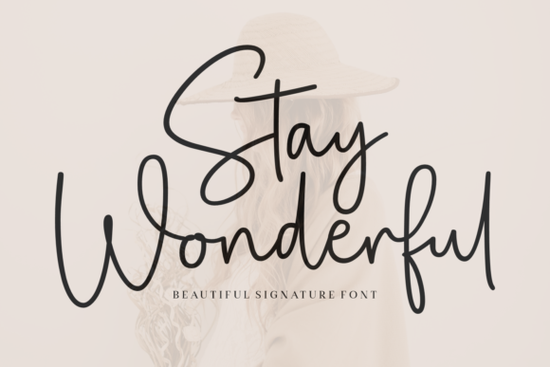
If you've been looking for a handwritten font that feels light, airy, and genuinely elegant, Stay Wonderful Font is worth a closer look. Its thin strokes and rounded letterforms give it a soft, approachable charm that works across many design styles. Whether you're creating wedding invitations, branding for a small business, or social media graphics, this font brings a human touch without looking messy or overly casual.
What makes Stay Wonderful Font different from other script fonts?
Many script fonts fall into one of two camps: either they're too fancy and hard to read, or they're too plain. Stay Wonderful Font sits right in the middle. Each letter is carefully shaped with a slight roundness that makes the whole word feel warm and inviting. The thin weight keeps it from overpowering your layout, so it pairs nicely with bolder display fonts or clean sans-serifs.
Because it's a handwritten font, it naturally has that imperfect, personal feel that people connect with. But the letters are consistent enough to remain legible, even in shorter paragraphs. This balance is hard to find, and it's one reason designers keep coming back to fonts like this.
Where can you use Stay Wonderful Font in real projects?
This font's versatility means you can use it across print and digital work. Here are a few common scenarios where it really shines:
- Wedding and event stationery – Save-the-dates, invites, thank-you cards, and place cards. The delicate strokes look beautiful on cream or textured paper.
- Branding for boutique businesses – Think florists, bakeries, beauty salons, or handmade product shops. The font's personality supports a friendly brand voice.
- Social media quotes and overlays – Use it for Instagram posts, Pinterest pins, or blog headers. It adds a handwritten feel without needing your own handwriting.
- Print-on-demand products – T-shirts, mugs, tote bags, and wall art. Customers often buy designs that feel personal, and this font delivers that.
- Etsy store graphics – Product labels, banners, and packaging inserts become more attractive with this font's clean look.
If you already enjoy working with other handmade font script fonts, you'll notice that Stay Wonderful Font has a slightly more refined and balanced shape. It doesn't compete with your layout – it complements it.
Does Stay Wonderful Font work well with other fonts and styles?
Yes, and this is a key reason to use it. Because it's thin and rounded, it pairs naturally with cherry font script fonts that are bolder or more playful for contrast. You could also combine it with a clean sans-serif for a modern, easy-to-read combination. For a retro sporty look, try it alongside baseball classic font script fonts – the contrast between thick retro letters and light handwriting creates a fun tension.
If you're building a tropical themed project, coconut bay font script fonts can anchor your title while Stay Wonderful Font handles the subtext. And for a more casual, everyday feel, daddy font script fonts can bring a sturdy companion to the delicate handwriting. Experiment with sizing and layering – this font responds well to being scaled up or down.
Is Stay Wonderful Font good for logos and branding?
Absolutely. Its rounded letterforms make the font feel friendly, which works for brands that want to appear approachable. Because it's not too heavy, you can use it in monogram-style logos, as a wordmark for your business name, or as part of a larger emblem. Just make sure to test it at smaller sizes – the thin strokes might get lost if your logo needs to be tiny on a business card. For digital use, it reads beautifully on screens.
Quick checklist before you use Stay Wonderful Font
- ☐ Test readability at different sizes – especially small text.
- ☐ Pair it with at least one contrasting font (bold serif or sans-serif).
- ☐ Try it on different backgrounds – light, dark, and textured.
- ☐ Use kerning adjustments if your design software allows – some letter pairs may need a tweak.
- ☐ Check how it looks in all caps – some handwritten fonts lose charm that way.
If you're still unsure, just open a test document and type out your brand name or a short phrase. You'll quickly see if Stay Wonderful Font matches the mood you're aiming for. For a next step, try combining it with a bold vintage font or a clean geometric one – the contrast often leads to surprising, beautiful results.